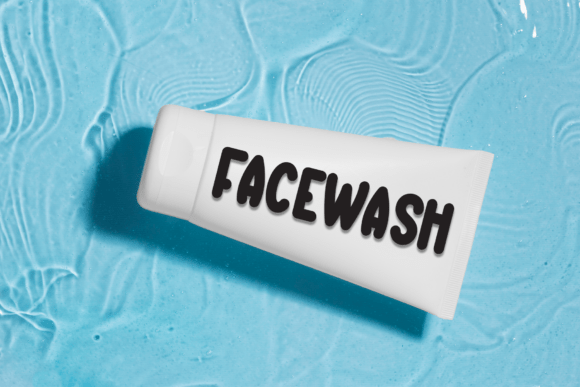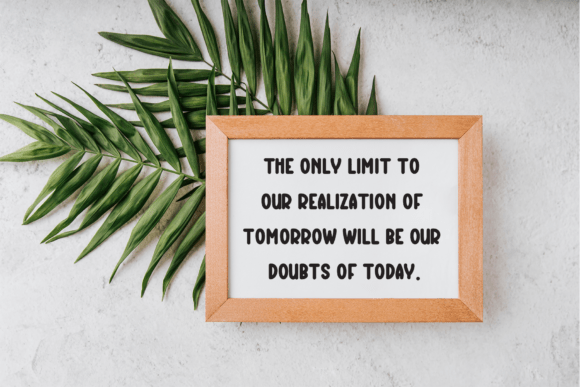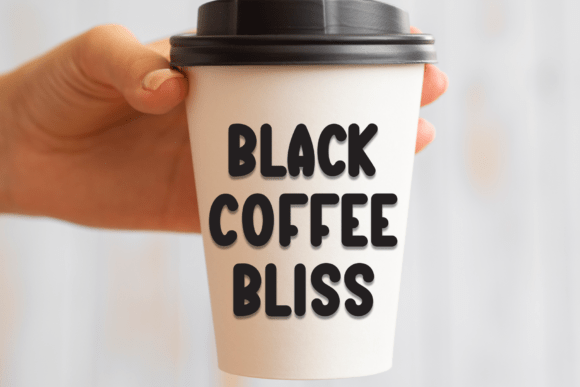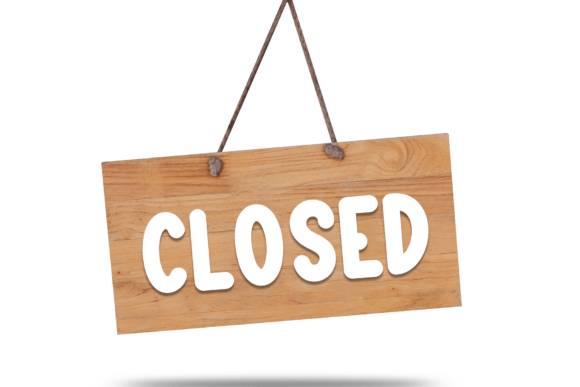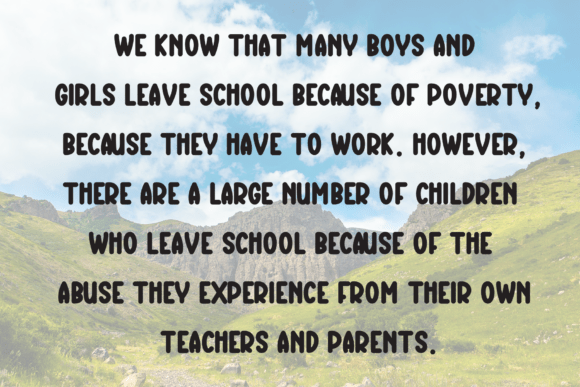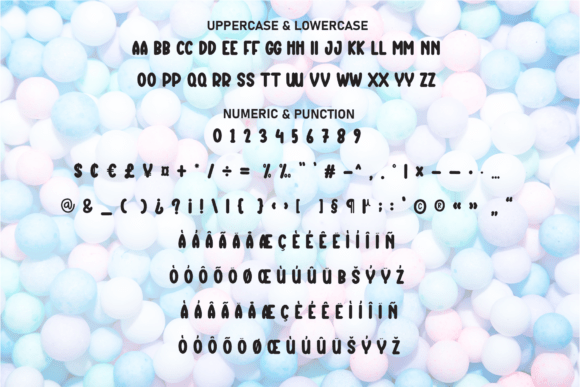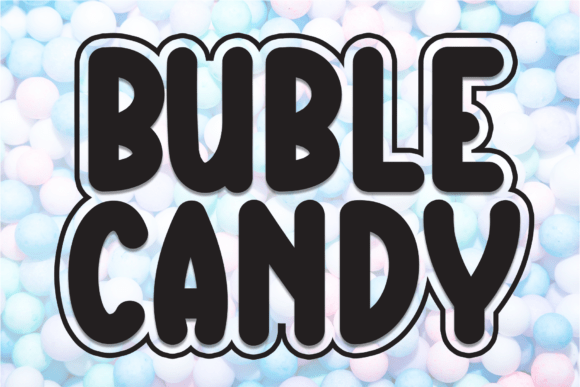
Buble Candy Font: The Sweetest Addition to Your Design Projects
Are you looking for a font that can add a touch of freshness and friendliness to your design projects? Look no further than the Buble Candy font! This casual and neat display font is perfect for a variety of applications, from packaging and posters to social media graphics and more. In this article, we’ll take a closer look at the Buble Candy font, its features, and how you can use it to elevate your designs.
What is Buble Candy Font?
Buble Candy is a display font that exudes a fresh and friendly vibe. Its clean lines and relaxed structure make it perfect for designs that require a casual and approachable feel. The font’s neat and polished appearance ensures that it remains clear and legible, even at larger sizes.
Key Features of Buble Candy Font
- Clean Lines: The Buble Candy font features clean lines that give it a crisp and modern appearance.
- Relaxed Structure: The font’s relaxed structure adds a touch of casualness and friendliness to your designs.
- Polished Appearance: Despite its casual feel, the Buble Candy font maintains a polished appearance that ensures your designs look professional.
- Versatile: The font is versatile and can be used for a variety of applications, from packaging and posters to social media graphics and more.
The Buble Candy font is perfect for designers and crafters who want to add a touch of freshness and friendliness to their projects. Whether you’re working on a packaging design, poster, or social media graphic, this font is sure to impress. Its approachable design adds charm and clarity to your projects, making it easy to communicate your message.
Use Cases for Buble Candy Font
- Packaging Design: Use the Buble Candy font to add a touch of freshness and friendliness to your packaging designs.
- Posters: The font’s clean lines and relaxed structure make it perfect for posters that require a casual and approachable feel.
- Social Media Graphics: Use the Buble Candy font to create social media graphics that are engaging and easy to read.
- Crafting Projects: The font is also perfect for crafters who want to add a personal touch to their projects, such as handmade cards and gift tags.
Why Choose Buble Candy Font?
There are many reasons why you should choose the Buble Candy font for your design projects. Here are just a few:
- Unique and Eye-Catching: The Buble Candy font is unique and eye-catching, making it perfect for designs that require a touch of personality.
- Easily Readable: The font’s clean lines and relaxed structure ensure that it remains easily readable, even at larger sizes.
- Versatile: The Buble Candy font is versatile and can be used for a variety of applications.
- High-Quality: The font is of high-quality, ensuring that your designs look professional and polished.
In conclusion, the Buble Candy font is a great addition to any design project. Its fresh and friendly vibe, clean lines, and relaxed structure make it perfect for a variety of applications. Whether you’re a designer or crafter, this font is sure to impress. So why not give it a try and see how it can elevate your designs?
Tips and Tricks for Using Buble Candy Font
- Pair it with Other Fonts: Experiment with pairing the Buble Candy font with other fonts to create a unique and eye-catching design.
- Use it in Combination with Images: Use the Buble Candy font in combination with images to add a touch of personality to your designs.
- Experiment with Colors: Experiment with different colors to find the perfect combination that works with the Buble Candy font.
By following these tips and tricks, you can create stunning designs that showcase the Buble Candy font in all its glory.